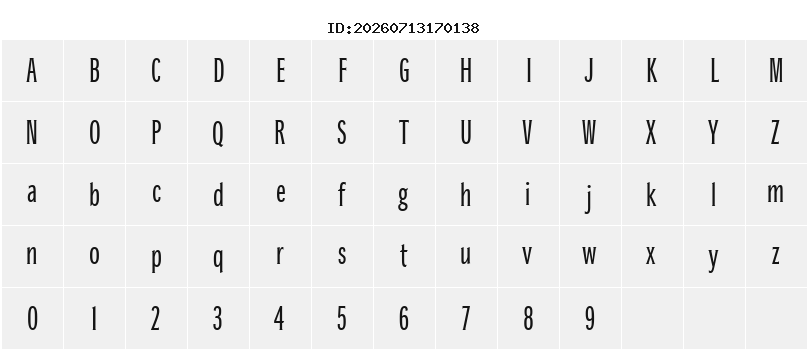
Baltra GD Preview
• Font Name: Baltra GD
• Font Style: Roman
• Font ID: Baltra
• Full Font Name: Baltra GD
• Version: mfgpctt-v1.86 Wed Aug 14 13:12:43 EDT 1996
• PostScript Name: BaltraGD
• Character Count: 285
About Baltra GD.ttf
Baltra GD.ttf is a modern, elegant sans-serif font designed for ultimate readability and visual harmony. Perfect for branding, headlines, web design, and print materials.